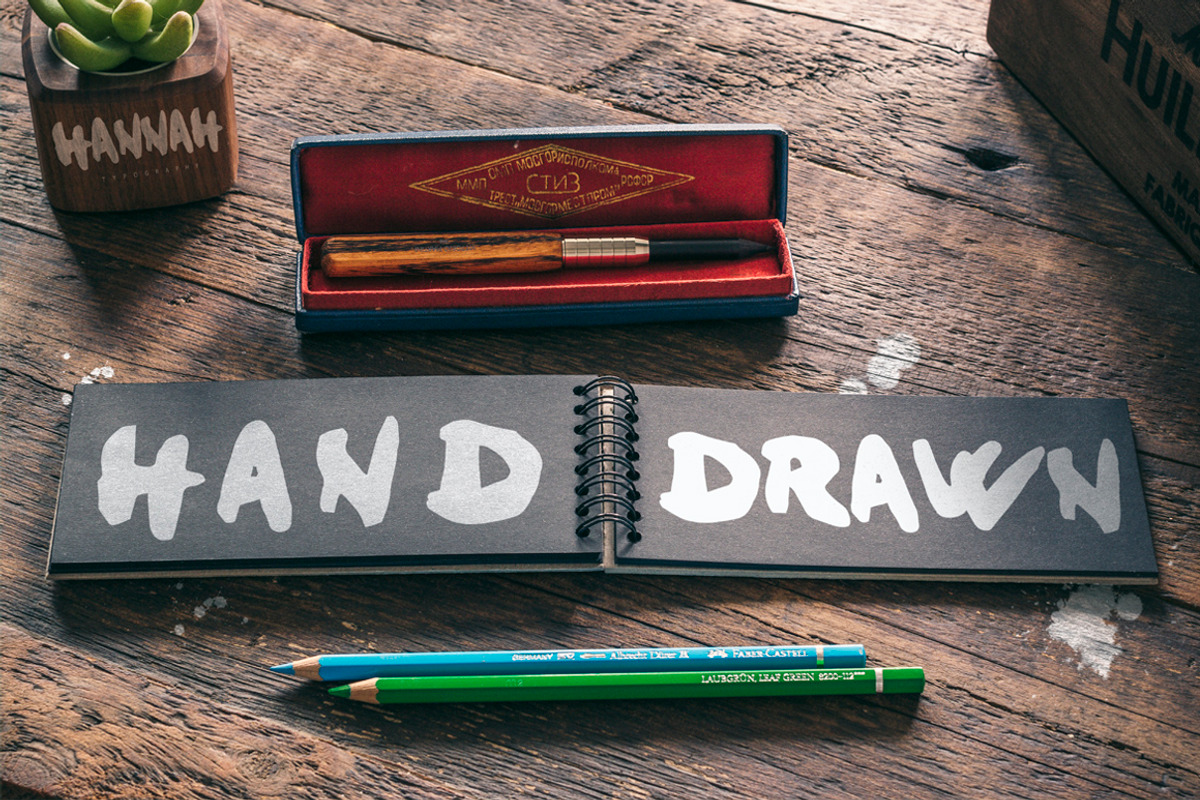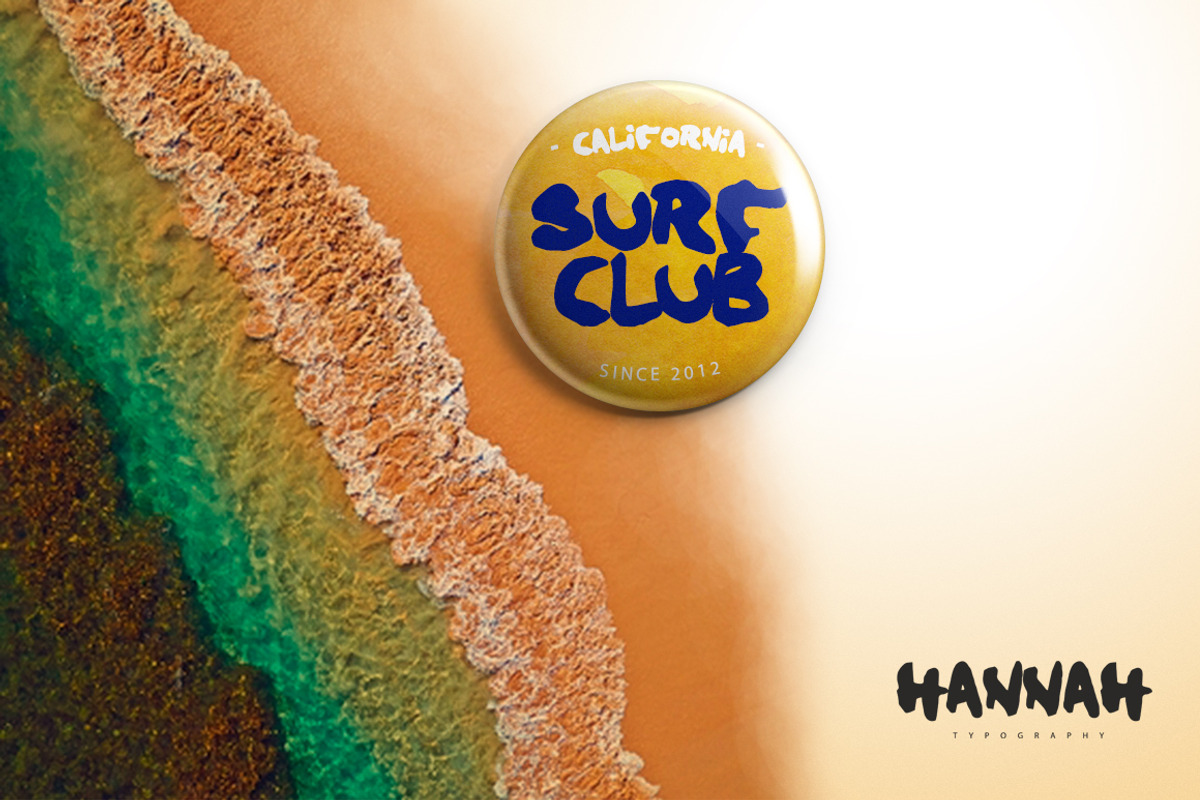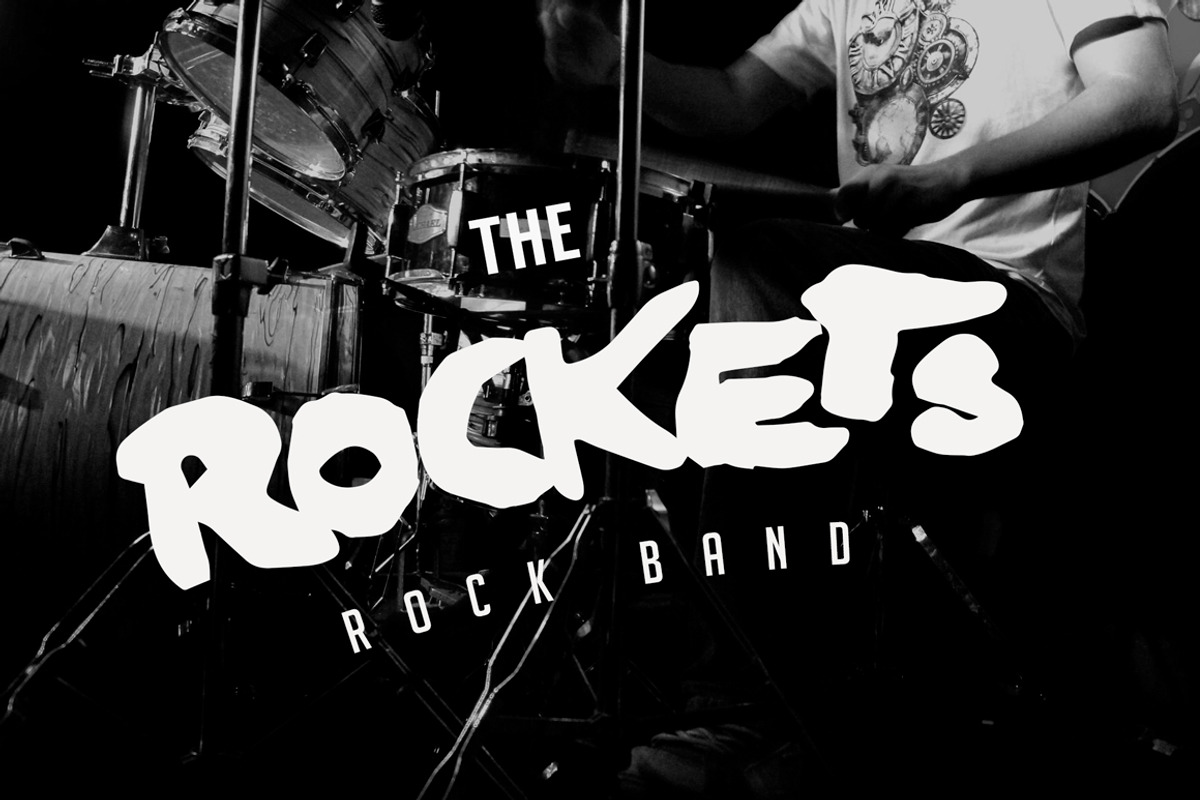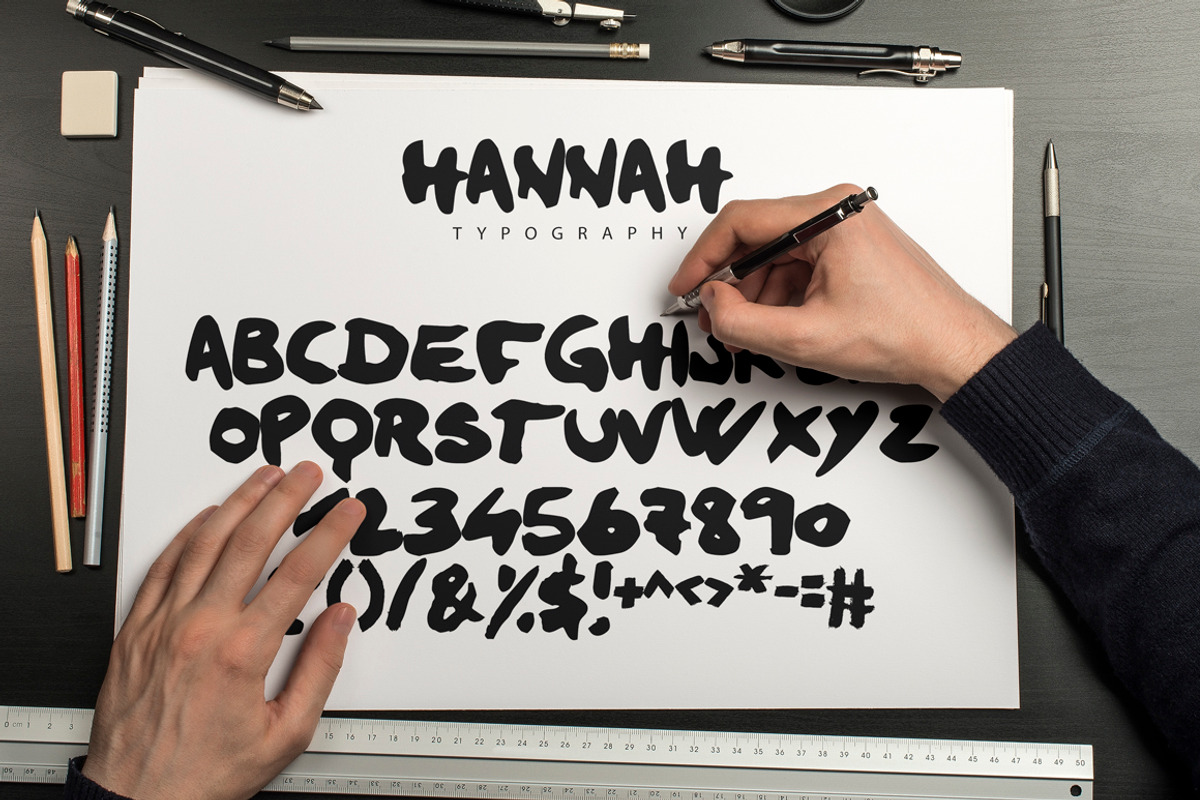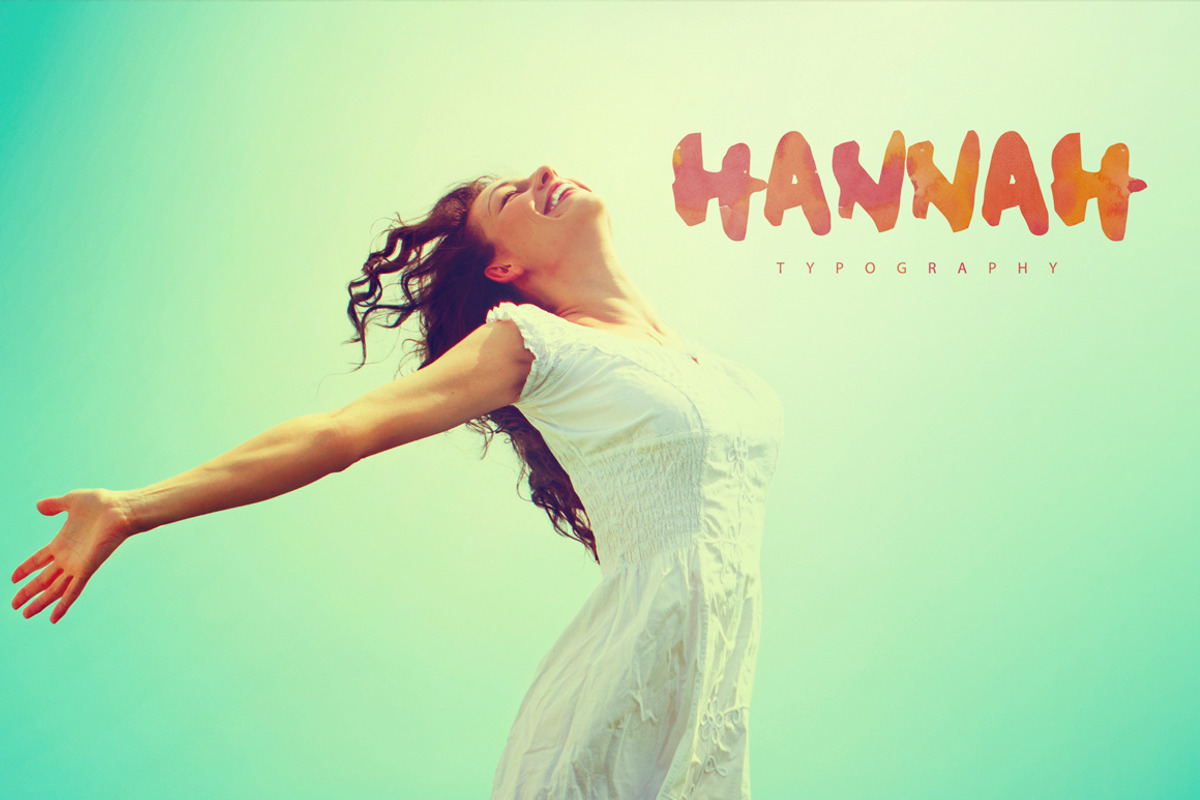
Hannah Brush Font
Hannah Brush Font by SmartDesigns is a font selected for branding, posters, packaging, typography.
Hannah Brush Font by SmartDesigns fits naturally into Branding, posters, packaging, typography.